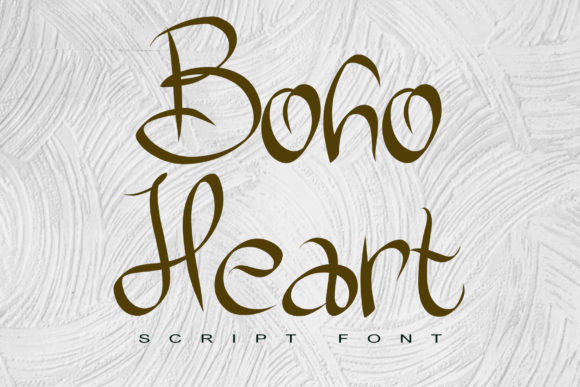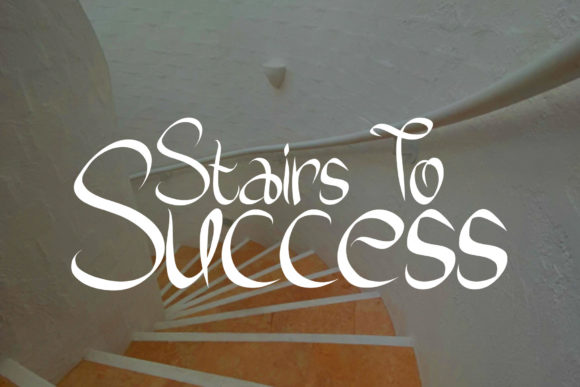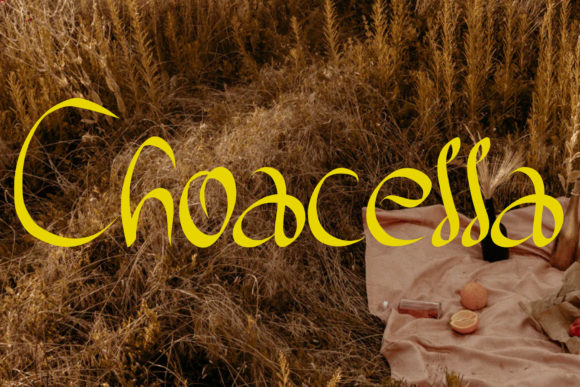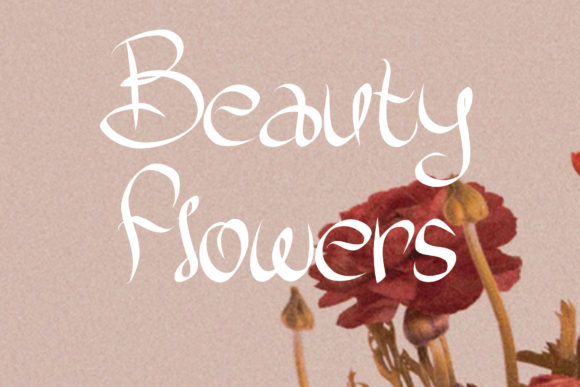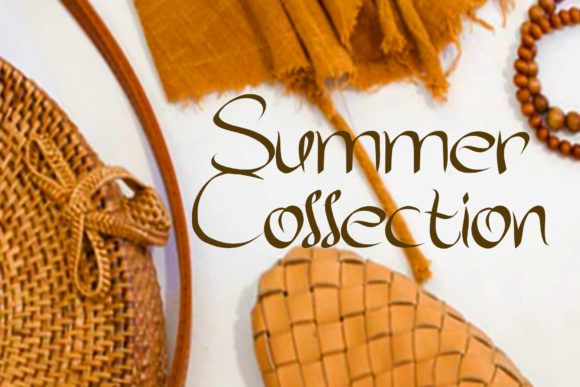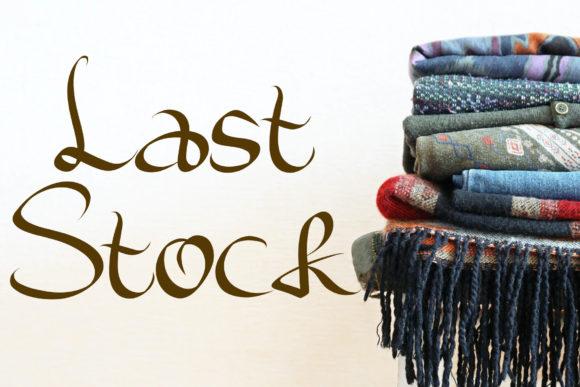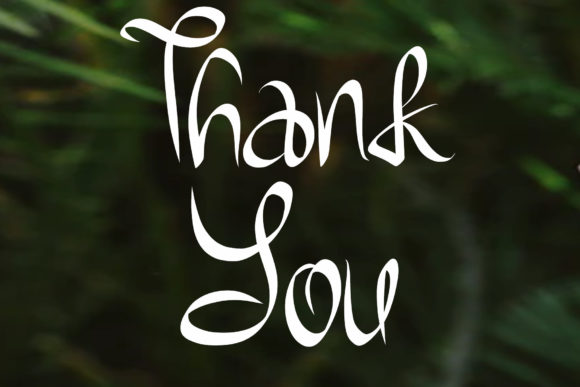
Boho Heart Font
About Boho Heart Font
Boho Heart is a chic, delicate script font that emanates sophistication and elegance. Its stylish alternates and ligatures make this font the perfect match for any project.